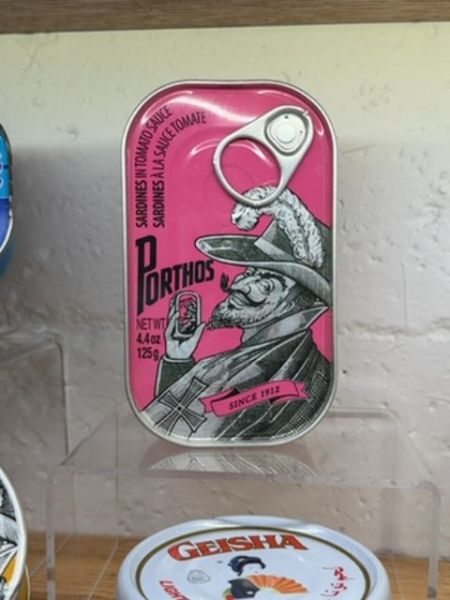
Porthos Sardines
Canned sardines in tomato sauce.
1912
USA
The typography includes a bold serif font for the word 'Porthos,' lending a sense of heritage and robustness. The other text uses a classic sans-serif typeface, ensuring clarity and readability against the vibrant background.
The packaging features a vibrant pink background with a stylized illustration of a musketeer holding a can of sardines. The illustration adds a vintage charm and captures attention with its bold lines and traditional attire.
- Contains sardines in tomato sauce.
- Packaged in a 4.4 oz (125g) tin.
- Established in 1912.